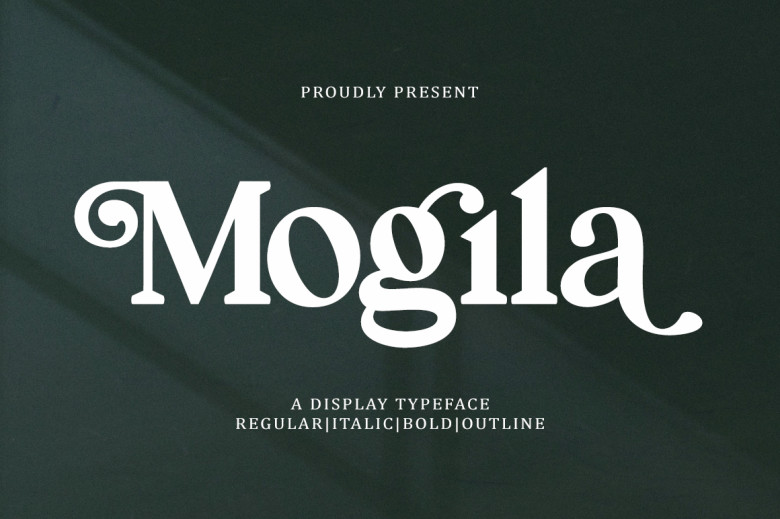
Mogila Font
Mogila is a display font with a hint of style that is both cheerful, elegant, and strong. Therefore, it is appropriate to use this display font on product design, appearance because of desire or modern and vintage design. With OpenType features, several alternative characters allow you to mix and match letter pairs to fit your design.
Mogila has 4 different styles, Regular, Italic, Bold, and Outline, which are made with different styles but still contain the same characters. As mentioned above, should be use in title, poster product, logo, book, menu, web design, book, t-shirt, poster, book wrap, label, business card, popular piece, print field, and much more as required.
Mogila Serif Font